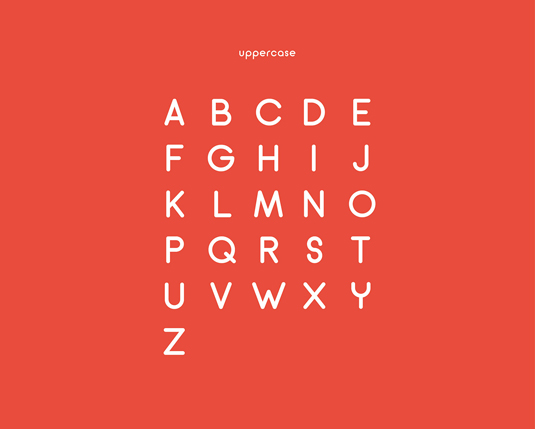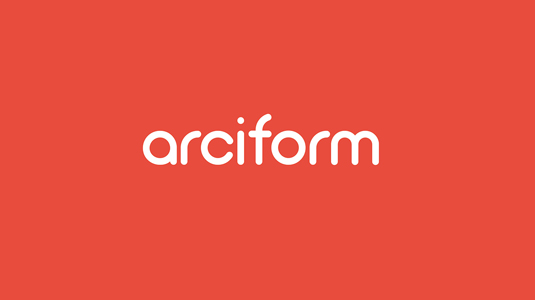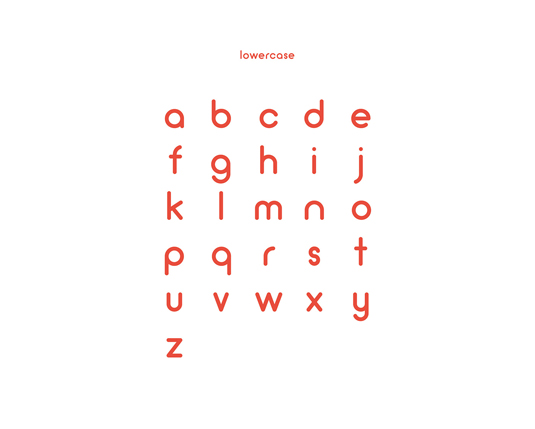
Font of the day: Arciform
Arciform by Matt Ellis
Kicking off our font of the day posts this week is designer Matt Ellis with his latest creation Arciform – a geometric sans serif typeface with rounds and a light and fluffy feel.